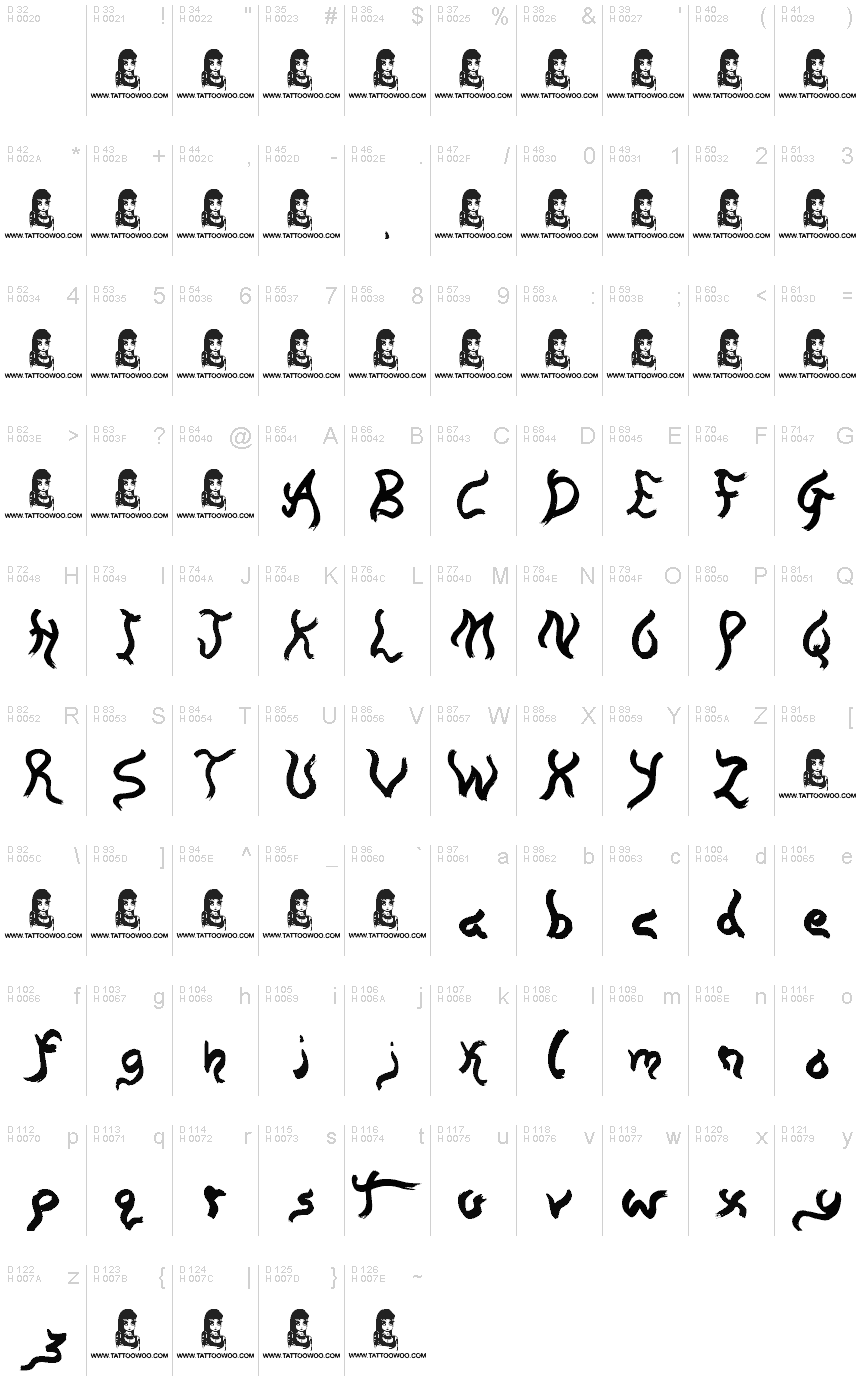
The Boatman
The Boatman, a distinctive creation by TattooWoo.com, stands out with its semi-light brush style that exudes an artistic flair. Its strokes are reminiscent of an ink-laden brush gliding across a canvas, resulting in elegant yet assertive characters. The dynamism in its varying stroke widths and the effortless flow of each letter lend it a handcrafted charm that is both visually intriguing and emotionally resonant.
This font's aesthetic appeal lies in its ability to convey motion and emotion, making it an excellent choice for projects that require a touch of personality. From book covers to branding materials, The Boatman adds a sense of human touch to digital designs. It invites audiences into realms where type is not just seen but felt, making it particularly well-suited for creative endeavors that value individuality and expressiveness.